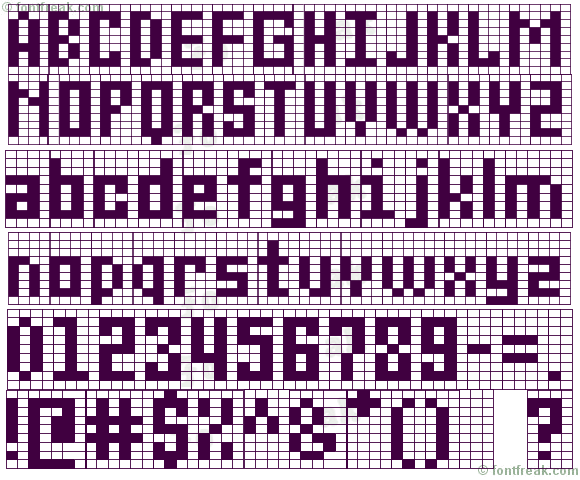
Gridtile
The Gridtile font by GGBot is a unique display typeface that blends contemporary design with a playful, geometric aesthetic. This font stands out with its distinct grid-like structure, characterized by bold, blocky letters that create a sense of order and modernity. The stroke weight is consistent throughout the characters, adding to the uniformity of the design, while the spacing between letters is optimized for legibility, making it suitable for various applications. The overall visual style is clean and structured, with no decorative elements, emphasizing a minimalist approach that is both appealing and functional.
Gridtile is an excellent choice for a variety of use cases. Its striking design makes it ideal for attention-grabbing movie posters, where it can effectively convey a sense of modernity and innovation. Additionally, this font works well for tech-related branding, such as logos or promotional materials for startups in the digital space. Restaurant menus can also benefit from the Gridtile font, providing a contemporary feel that resonates with a modern dining experience. Furthermore, graphic designers looking to create unique event flyers or promotional graphics will find Gridtile to be a versatile option that stands out without overwhelming other design elements.
Targeted towards graphic designers, small business owners, and content creators, Gridtile is perfect for those who appreciate a distinctive typeface that enhances their projects. Its availability as a freeware font makes it accessible for anyone looking to elevate their design without incurring costs. The Gridtile font free download allows users to experiment with its unique visual style in their own creative endeavors. In summary, Gridtile's bold, geometric form and modern appeal make it a standout choice for diverse applications, ensuring that your designs will not go unnoticed.